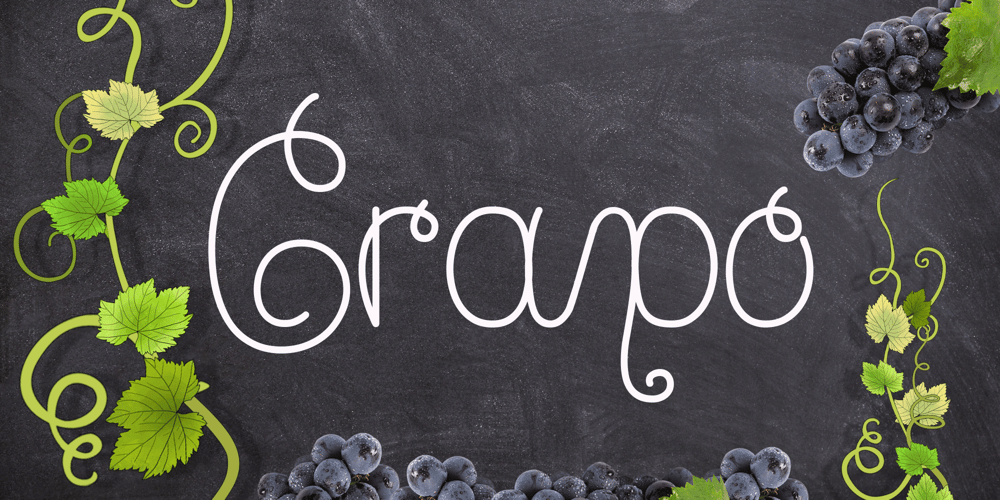
Grapo Font Family was designed by Ilyos Daminov and published by EclipseType. Grapo contains 1 styles and family package options. Grapo – are handwritten fonts with a unique bounded shape, is perfect for any titles, logo, product packaging, branding project wedding invitations, stationery, photography, social media posts, product packaging, greeting cards, and much more!Grapo also come with Multi-Lingual Support.